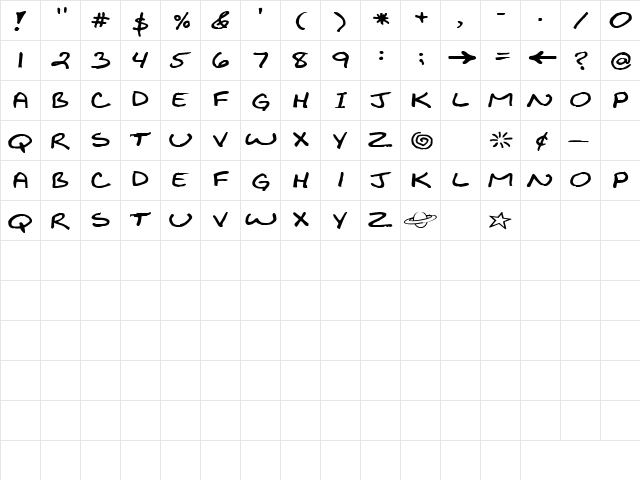
Shining 3 Regular
Design Context for Shining 3 Typeface
Shining 3 is a composed and adaptable typeface that performs quietly and consistently across a wide range of design contexts.